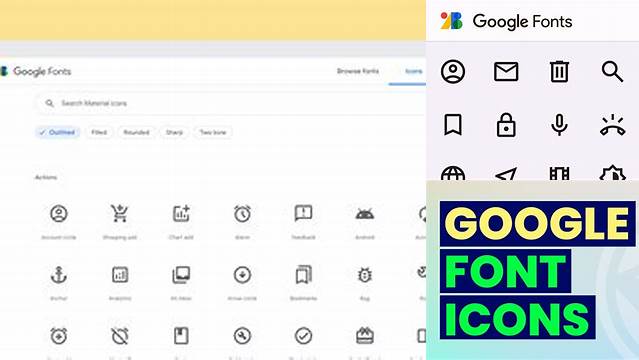
Google Fonts: Material Icons, API & Icon Family Guide
Hey there, design enthusiasts! Ever wondered how to spice up your website or app with awesome icons without bloating your project? Well, you're in the right place! Today, we're diving deep into Google Fonts, specifically focusing on Material Icons, the Googleapis magic behind them, and how to use the icon family like a pro. Buckle up, because we're about to make your designs pop!
What are Google Fonts?
Alright, let's start with the basics. Google Fonts is a massive library of free, open-source fonts that you can use on your website. It's a game-changer because you don't have to host the font files yourself; Google does all the heavy lifting. This means faster loading times and a smoother experience for your users. Plus, it's incredibly easy to integrate – just a simple line of code, and you're good to go! But beyond just text fonts, Google Fonts also offers a fantastic selection of icon fonts, with Material Icons being a standout choice. These icons are designed to be clean, modern, and consistent, making them perfect for a wide range of projects.
Using Google Fonts is like having a treasure trove of typographic goodies at your fingertips. You can browse through thousands of fonts, preview them in different styles and sizes, and even download them for offline use. But the real magic happens when you integrate them directly into your website. By linking to Google's servers, you ensure that your fonts are always up-to-date and optimized for performance. This not only saves you bandwidth but also ensures that your website looks its best on any device. And with Material Icons, you get a whole library of beautifully designed icons that can be easily customized to match your brand's aesthetic. Whether you're building a simple blog or a complex web application, Google Fonts is an essential tool for any designer or developer.
Introduction to Material Icons
Okay, so Material Icons are part of Google's Material Design system. They're designed to be simple, modern, and adaptable. Think of them as the visual language of the web. Material Icons are crafted with a focus on readability and clarity, making them instantly recognizable and easy to understand. They cover a broad range of categories, from basic UI elements like arrows and buttons to more specialized icons for specific industries and applications. Whether you need an icon for navigation, social media, or e-commerce, you're likely to find it in the Material Icons library. Plus, they're all designed to work seamlessly together, so you can create a consistent and professional look for your website or app.
These icons aren't just pretty faces; they're also incredibly versatile. You can easily change their size, color, and even their shape to match your brand's style. And because they're vector-based, they'll look crisp and clear on any screen, whether it's a tiny smartphone or a massive 4K display. But perhaps the best part is that Material Icons are constantly being updated and improved. Google regularly adds new icons to the library, so you'll always have access to the latest and greatest designs. This means you can keep your website looking fresh and modern without having to spend hours creating your own icons from scratch. So, if you're looking for a reliable and comprehensive icon set, Material Icons are definitely worth checking out.
The Googleapis Connection
Here's where the Googleapis magic comes in. Googleapis is essentially the backbone that delivers Material Icons (and other Google Fonts) to your website. It's a content delivery network (CDN) that hosts the font files and ensures they're served quickly and efficiently. This means you don't have to worry about hosting the files yourself or dealing with complex server configurations. You simply link to the Googleapis CDN, and your icons will be ready to go. It's like having a personal assistant who handles all the technical stuff so you can focus on designing awesome things.
The beauty of using Googleapis is that it's incredibly reliable and scalable. Google's servers are designed to handle massive amounts of traffic, so you can be confident that your icons will always load quickly, even during peak hours. Plus, Googleapis automatically optimizes the font files for different browsers and devices, ensuring that your icons look their best on every screen. This level of optimization is crucial for maintaining a fast and responsive website. And because Googleapis is constantly being updated with the latest versions of Material Icons, you'll always have access to the newest features and improvements. So, if you want to ensure that your website is fast, reliable, and always up-to-date, using Googleapis is a no-brainer.
Understanding the Icon Family
The Material Icons family is vast and diverse, covering a wide range of categories and use cases. It's organized into different styles, including filled, outlined, rounded, two-tone, and sharp. Each style offers a unique visual aesthetic, so you can choose the one that best matches your brand's style. The filled style is the most common and features solid, bold icons that are easy to recognize. The outlined style offers a more minimalist look, with thin strokes that create a sense of lightness. The rounded style features smooth, curved edges that add a touch of playfulness. The two-tone style uses two colors to create depth and visual interest. And the sharp style features sharp, angular edges that give the icons a modern and edgy look. With so many styles to choose from, you can easily find the perfect Material Icons to complement your website or app.
But the Material Icons family is more than just a collection of different styles. It's also a carefully curated set of icons that are designed to work together seamlessly. Each icon is crafted with the same attention to detail and adheres to the same design principles. This ensures that your website or app looks cohesive and professional, no matter which icons you choose to use. And because the Material Icons family is constantly being updated and expanded, you'll always have access to the latest and greatest designs. So, whether you're building a simple blog or a complex web application, the Material Icons family has everything you need to create a visually stunning and user-friendly experience.
How to Embed Material Icons in Your Website
Okay, let's get practical. Embedding Material Icons into your website is super easy. You basically have two main options: using the Google Fonts CDN or downloading the icon font and hosting it yourself. The CDN is the simplest and most recommended method. You just add a <link>
, pointing to the Googleapis stylesheet. Then, you can use the icons by referencing their names in your HTML. For example, to display a home icon, you'd use <span class="material-icons">home</span>